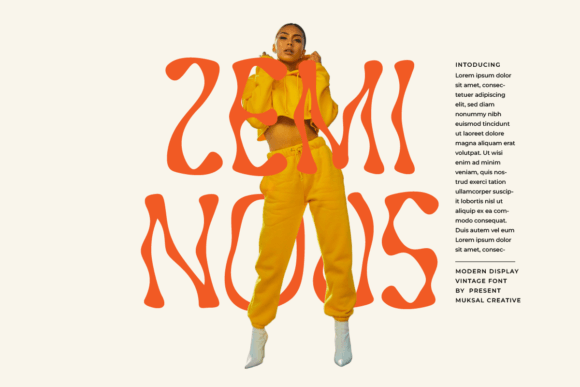
Rovinca Vintage: The Display Font with Character
There are thousands of fonts out there, but only a handful manage to capture a specific mood and hold it so well that it becomes the go-to choice for a wide range of projects. Rovinca Vintage is a unique and interesting display font. A little bit quirky, this font looks incredibly adept on a wide variety of contexts! It walks that fine line between nostalgia and modern flair, making it a compelling choice for anyone looking to inject personality into their visual communication. If you are tired of the same old standard typefaces and want something that actually starts a conversation, this creative font might be exactly what your toolkit needs.
Beyond the Basics: What Makes a Display Font Work?
When we talk about typography, we often separate "readable" fonts meant for long blocks of text from "display" fonts meant for headlines. Rovinca Vintage firmly sits in the latter category, but that doesn't mean it lacks utility. In fact, display fonts are often the workhorses of branding. They are the first thing a customer sees on a logo, the bold text on a poster, and the stylized header on a website.
The appeal of a premium font like Rovinca Vintage lies in its details. It doesn't just look like letters on a screen; it looks like a design element in itself. The "vintage" aspect suggests history and reliability, while the quirky curves keep it from feeling stuffy or outdated. For a small business owner or a creative entrepreneur, this distinction is vital. You want your audience to feel a certain way the moment they see your brand name. Using a generic sans serif font might be safe, but it rarely evokes emotion. Rovinca Vintage, on the other hand, offers an instant aesthetic.
Practical Applications for Modern Creators
Understanding where to use a font like this is just as important as choosing it. Because it is a display typeface, it shines brightest where impact is required. Here is how you can practically apply Rovinca Vintage across different mediums to ensure your design assets look cohesive and professional.
Branding and Logo Design
Your logo is the face of your business. If you are launching a boutique coffee shop, a handmade jewelry line, or a retro-inspired clothing brand, Rovinca Vintage provides a strong foundation. Its distinct personality helps with brand recognition immediately. When customers see that specific shape of the letters, they start to associate it with your products. It works exceptionally well for logos that need to feel established yet artisanal.
Packaging and Print Materials
In the world of packaging design, shelf appeal is everything. Think about the labels on craft beer bottles, organic food wrappers, or cosmetic boxes. A serif font with vintage flair adds a layer of perceived quality. It suggests that care went into the product. You can use Rovinca Vintage for the product name on the front of the box, while pairing it with a cleaner sans serif font for the ingredient list on the back to maintain readability.
Digital Presence: Websites and Social Media
Web design relies heavily on visual hierarchy. Using Rovinca Vintage for your H1 headers or hero section text can instantly set the mood for your entire site. However, avoid using it for body text, as display fonts can be difficult to read in long paragraphs. On social media, where you have only a split second to grab attention, this font is a powerhouse. It works beautifully for Instagram graphics, quote cards, and sale announcements. It helps your posts stand out in a crowded feed, driving higher engagement.
Editorial and Marketing Assets
If you are creating a digital product, such as an eBook, a workbook, or a magazine layout, typography plays a massive role in the user experience. Using Rovinca Vintage for chapter titles or pull quotes adds a sophisticated editorial design touch. It breaks up the monotony of standard text and guides the reader's eye to the most important information. For marketing assets like flyers, posters, or business cards, it ensures that your materials look like they were designed by a professional, not just typed out in a word processor.
Strategic Typography: Building a Visual System
Choosing a font is rarely a standalone decision; it is part of building a larger visual system. To get the most out of Rovinca Vintage, you need to think about font pairing. A common mistake is trying to match a complex display font with another complex font. This creates visual clutter. Instead, contrast is your friend.
Because Rovinca Vintage has a lot of character, it pairs best with something neutral. A clean geometric sans serif or a simple serif font works well for body copy. This allows the display font to do the heavy lifting for headlines without competing for attention. When testing your pairings, look at the kerning (space between letters) and the x-height. You want the fonts to feel balanced, even if they look different.
Another consideration is the mood alignment. If Rovinca Vintage brings a retro vibe to your header, your body font shouldn't feel hyper-futuristic. They need to live in the same world. This consistency is what separates amateur designs from professional brand identity work. It creates a seamless flow that makes your content easier to consume and more enjoyable to look at.
Remember that the best designs are intentional. Don't choose a font just because it looks cool in the preview. Choose it because it communicates the right message to your specific audience. By combining the unique charm of Rovinca Vintage with smart layout practices and strategic pairings, you can elevate your creative projects and ensure your message is not just seen, but felt.